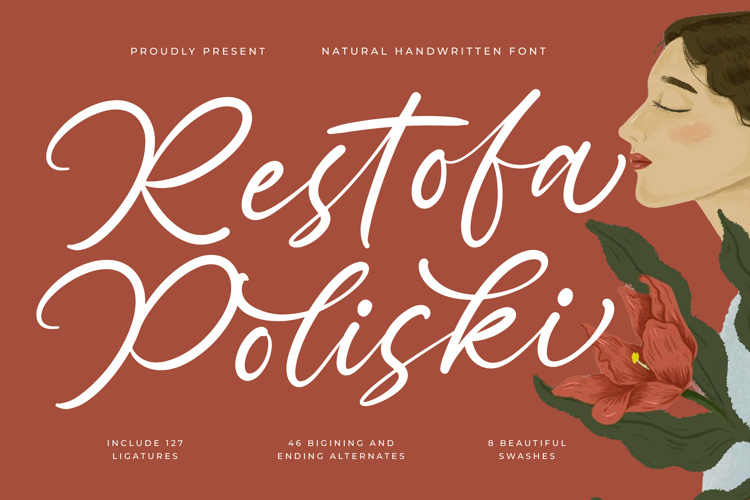
Restofa Poliski - Natural Handwritten Font
Experience the effortless grace of **Restofa Poliski**, a typeface that captures the fluid movement and organic beauty of authentic handwriting. This font is a celebration of sophisticated artistry, designed to bring a soulful and poetic touch to every digital canvas it touches.
Inspired by the delicate strokes of fine-point ink pens and the rhythmic flow of classical botanic illustrations, the typeface evokes a sense of timeless tranquility. Its visual narrative is rooted in a heritage of craftsmanship, making it the perfect choice for projects that require a warm, human connection.
While it flows with script-like elegance, it commands the same prestige as a **modern serif display**, offering a level of **luxury typography** usually reserved for a **high-contrast serif**. As a premier **editorial font**, it provides a unique **branding impact** that is both feminine and undeniably powerful.
Restofa Poliski sits at the forefront of the **modern serif trend**, offering a refreshing alternative to standard **editorial display fonts**. Designers looking for **character-driven typography** will find its unique letterforms essential for creating work that feels bespoke and culturally relevant.
This versatile typeface excels in high-end **logo design** and comprehensive **branding**, serving as the primary choice for **wedding** suites and **fashion** lookbooks. Its elegant flourishes also make it ideal for luxury **packaging** and high-concept **editorial** layouts that demand a signature look.
This professional set features 127 **ligatures** for seamless connectivity, alongside 46 beginning and ending **alternates** and 8 beautiful **swashes**. The package is completed with full support for **multilingual** projects and **international characters**, ensuring global compatibility for your creative vision.emotional resonance.